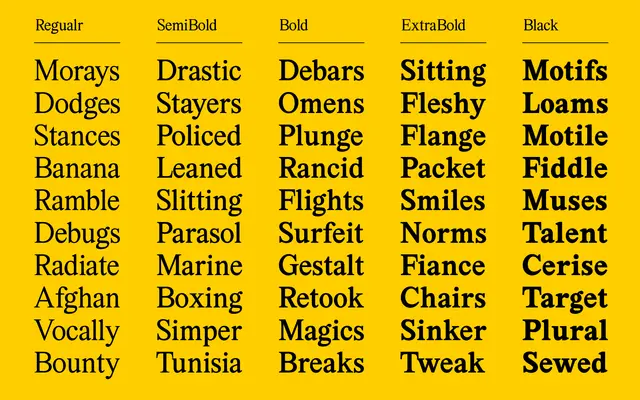
Marjorie Variable Family
A text serif from That That Type built for sustained reading, with restrained detail across five weights and a variable axis.
Marjorie arrives as That That Type's first typeface intended for body copy rather than display use, covering five weights from Regular to Black each with matching italics, plus a variable font. The family includes small capitals, oldstyle figures, tabular figures, superscripts, subscripts and fractions, giving it a solid feature set for long-form editorial or publishing work. Extended Latin coverage handles a wide range of Western European languages.
Marjorie is described explicitly as built for long-form text setting, with restrained personality and a quiet, readable character typical of text serifs designed for body copy.